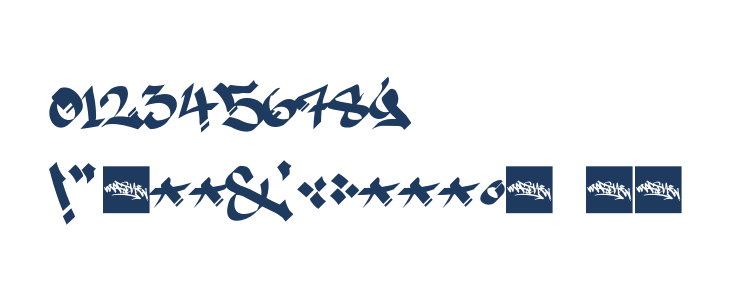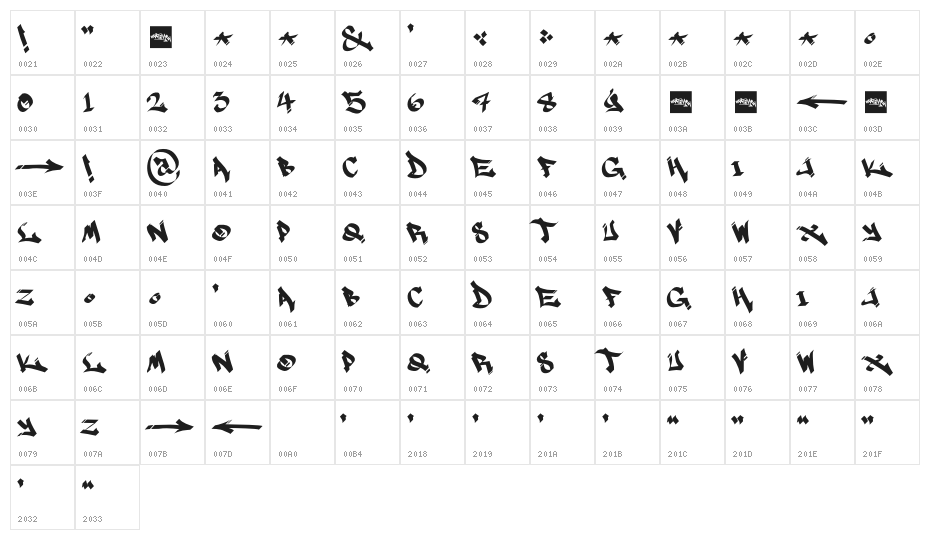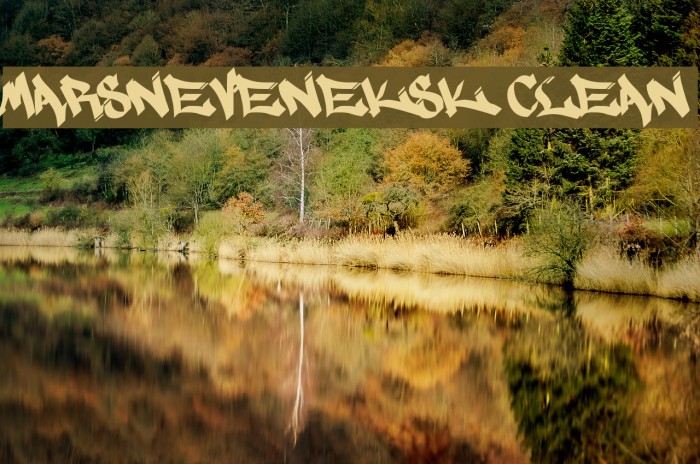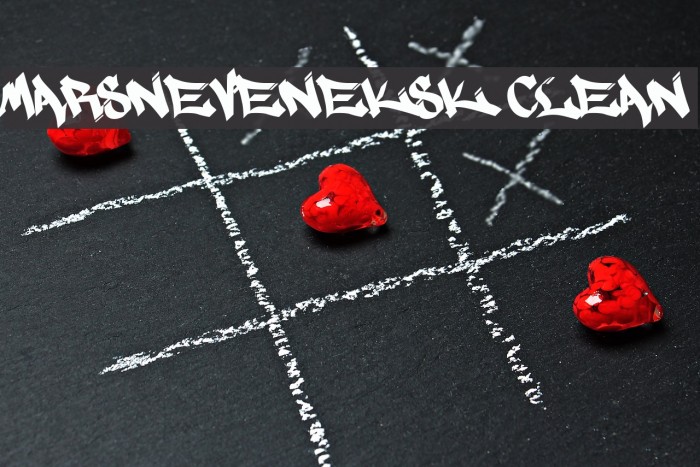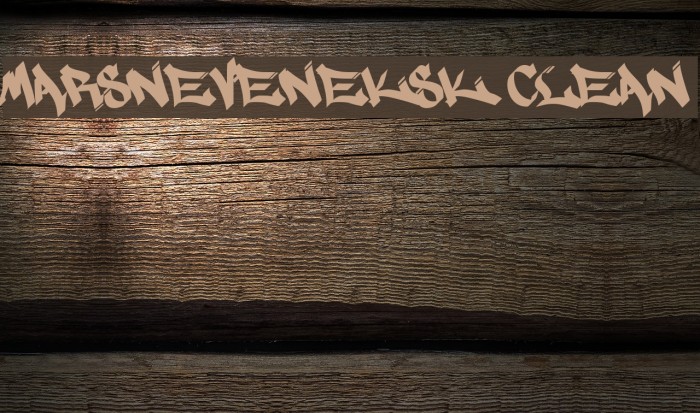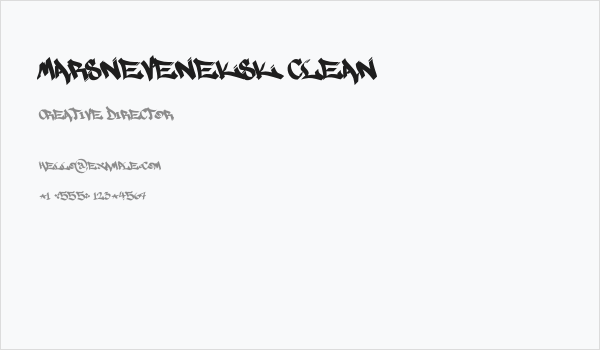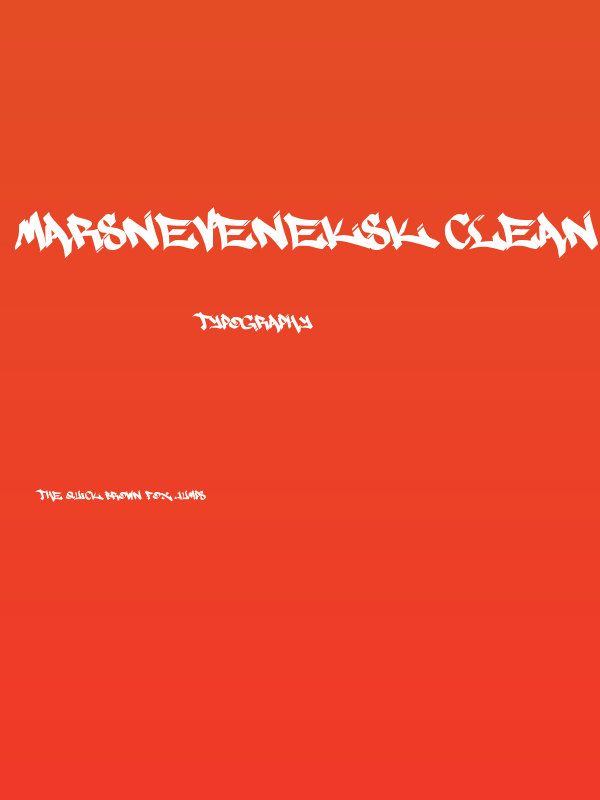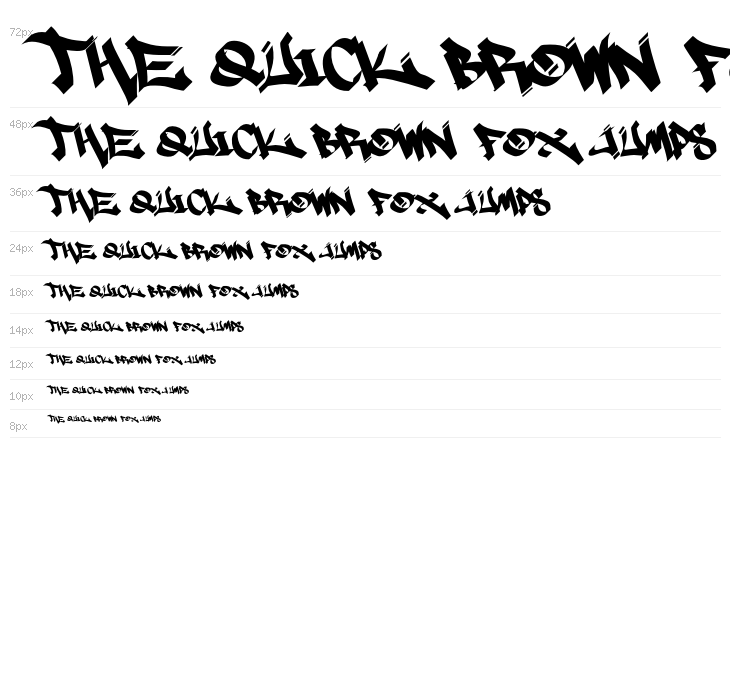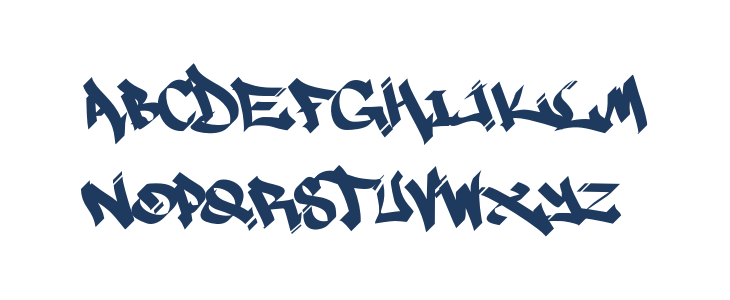
MARSNEVENEKSK Clean Font
MARSNEVENEKSK Clean Description
This font features a bold, graffiti-inspired style with sharp, angular lines and dynamic strokes. The characters are highly stylized, giving an edgy and urban feel. The uppercase and lowercase letters share a consistent design, with exaggerated serifs and a sense of movement. Numbers and special characters maintain the same aesthetic, ensuring a cohesive look across all elements. The font's unique appearance makes it stand out, ideal for projects that require a strong visual impact.
| Overall Style | Urban, Edgy, Modern |
| Proposed Projects | Ideal for street art designs, urban-themed posters, music album covers, and edgy branding projects. |